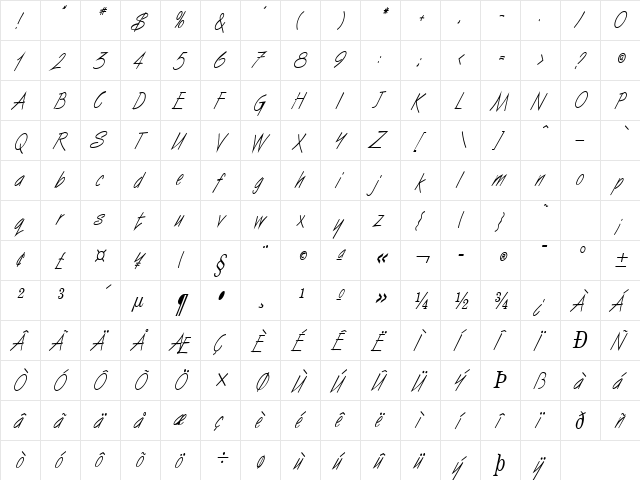
Vizier Condensed Italic Font Preview
Design Context for Vizier Condensed Typeface
Vizier Condensed takes a measured approach to typography — its balanced proportions and neutral character make it a reliable workhorse for both digital and print work. The dynamic lean of this cut emphasises speed and emphasis in any layout. The condensed width makes it efficient for tight spaces without sacrificing legibility.